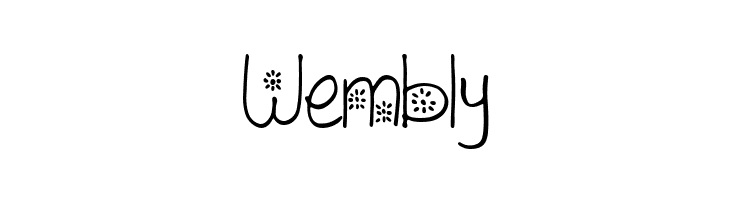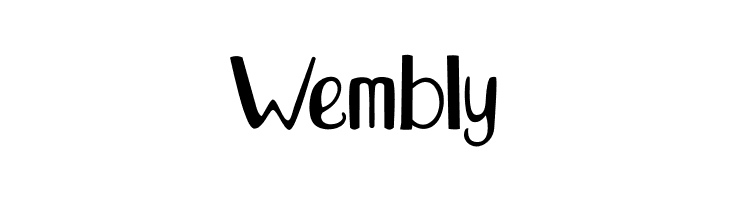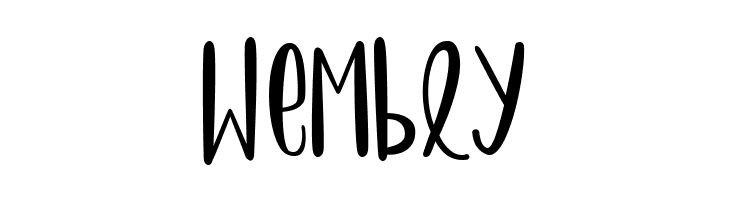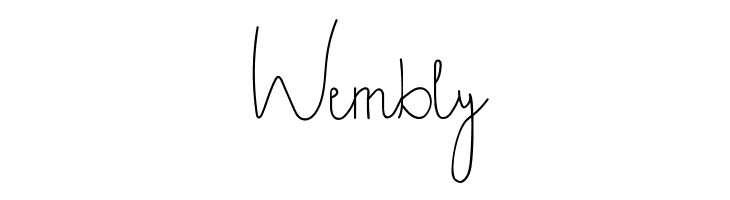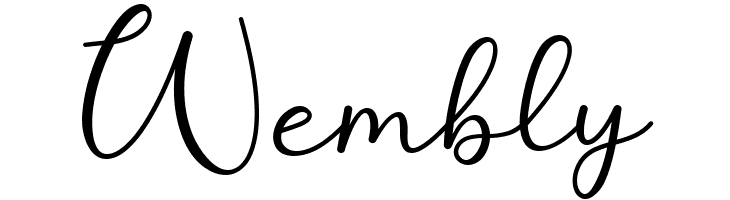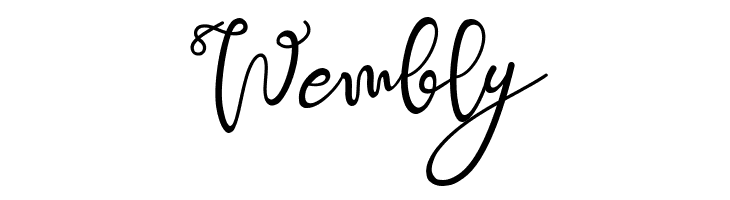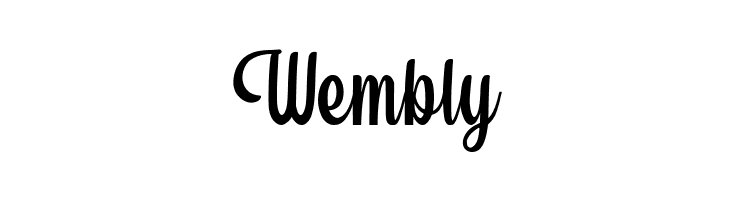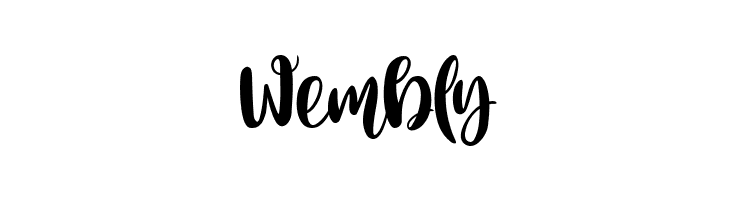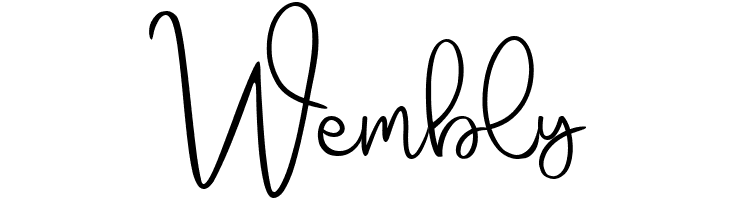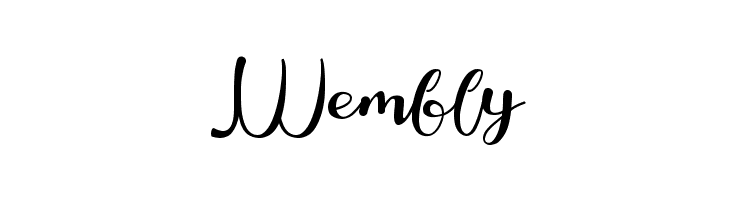
• Suburban Legends
A bold, energetic script font with a hand-drawn, graffiti-like style.
• Suburban Legends
• Subway Novella
A bold, distressed font with a vintage, grunge appearance.
• Sugar Donut
A playful, bold font with rounded, bubbly characters and a hand-drawn feel.
• Sugar Lorraine
A playful, handwritten font with fluid strokes and a whimsical style.
• SUGAR SHOCK
A playful, hand-drawn font with tall, narrow letters and a whimsical style.
• SUGAR SHOCK MAX'D Bold
A playful, bold handwritten font with tall, narrow letters and rounded edges.
• Sunday Happy
A playful and whimsical font with bold, rounded shapes and a hand-drawn feel.
• Sunday Snow
A playful and whimsical script font with a hand-drawn appearance.
• Sunny Beach
Playful and bold handwritten font.
• Sunny November Demo
A whimsical, handwritten font with a playful and modern style.
• Sunny November Demo
A playful, handwritten font with thin, flowing lines and a whimsical style.
• Sunrices
A playful, decorative font with sunburst patterns in each character.
• Sunset GP
A bold, geometric font with a 3D effect and textured interior.
• SUPER
A bold, graffiti-inspired font with sharp, angular edges and dynamic style.
• Super Comic Regular